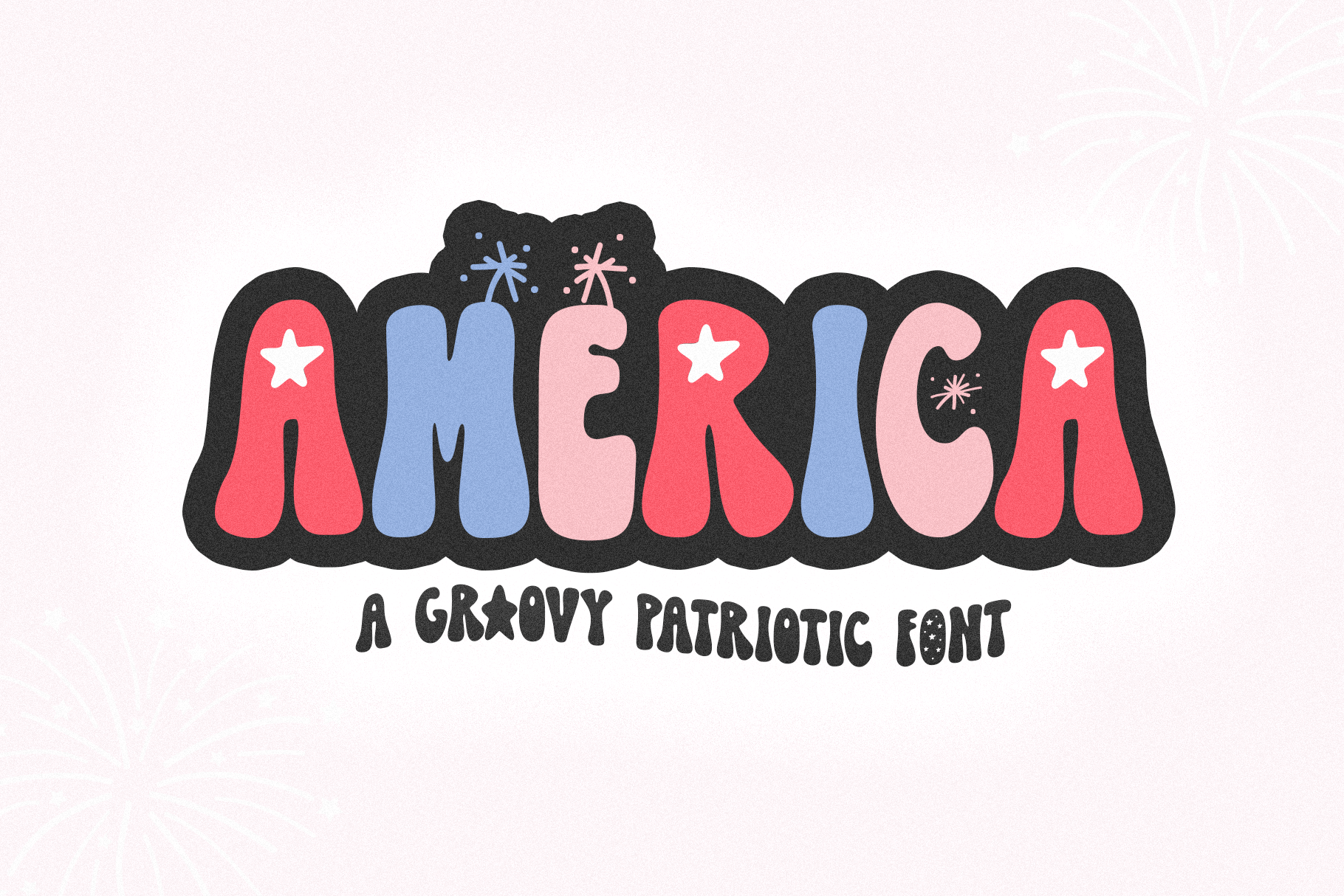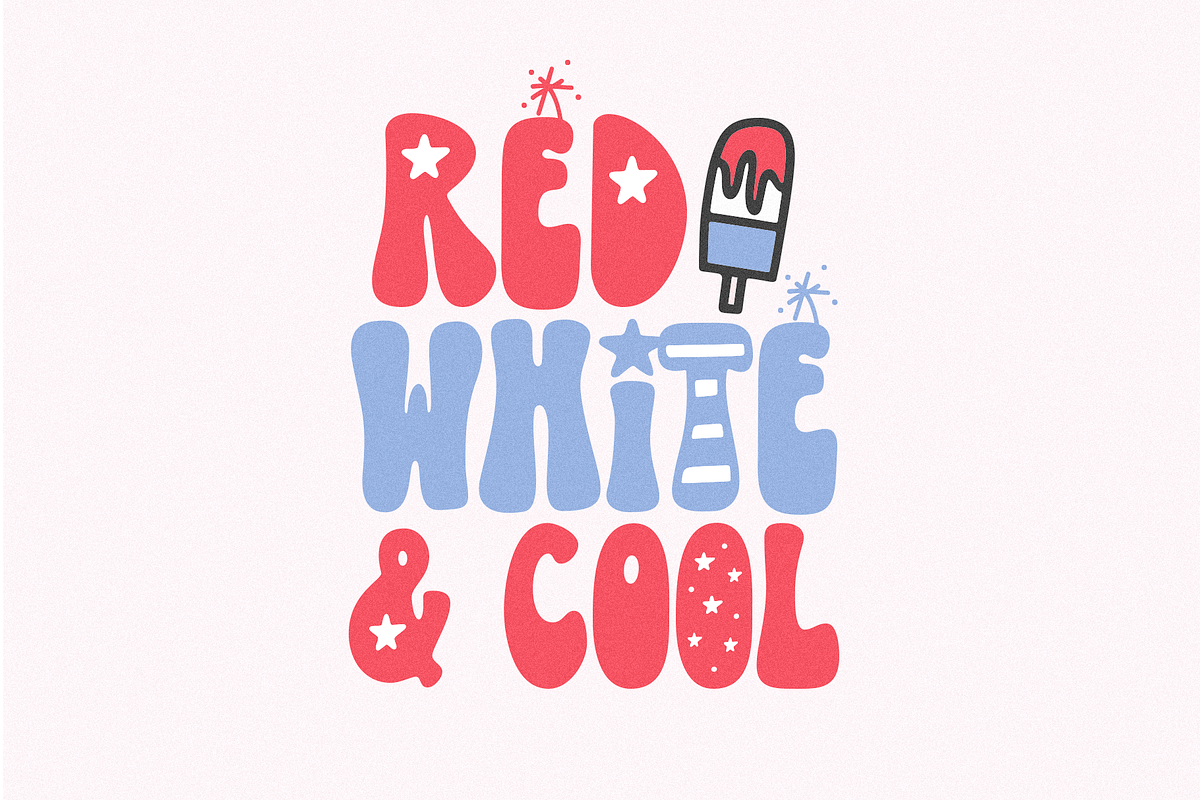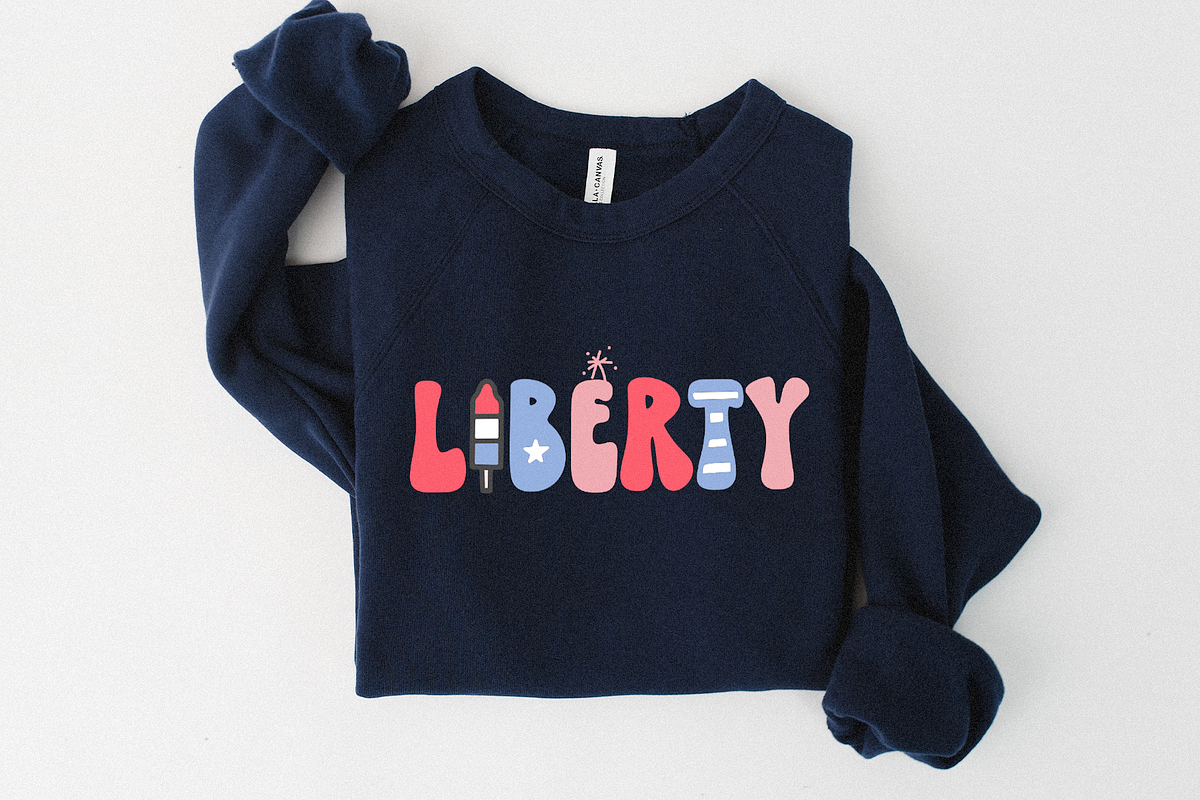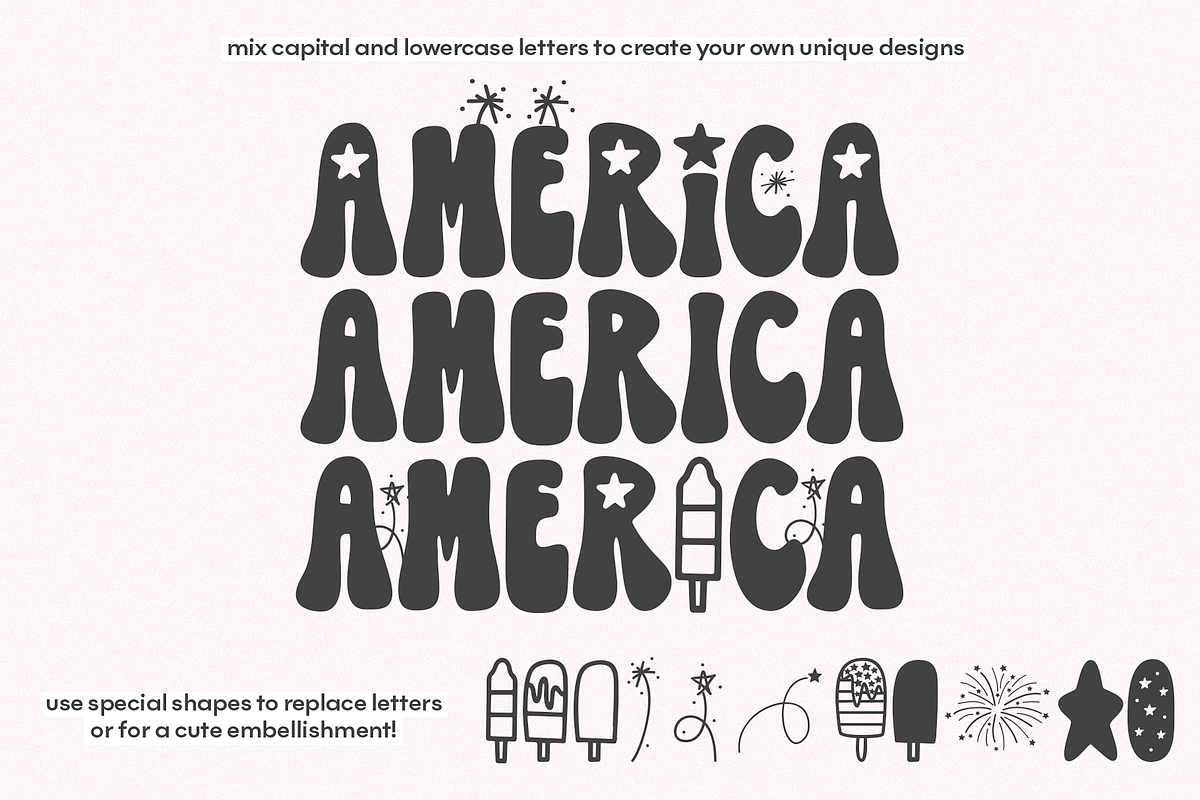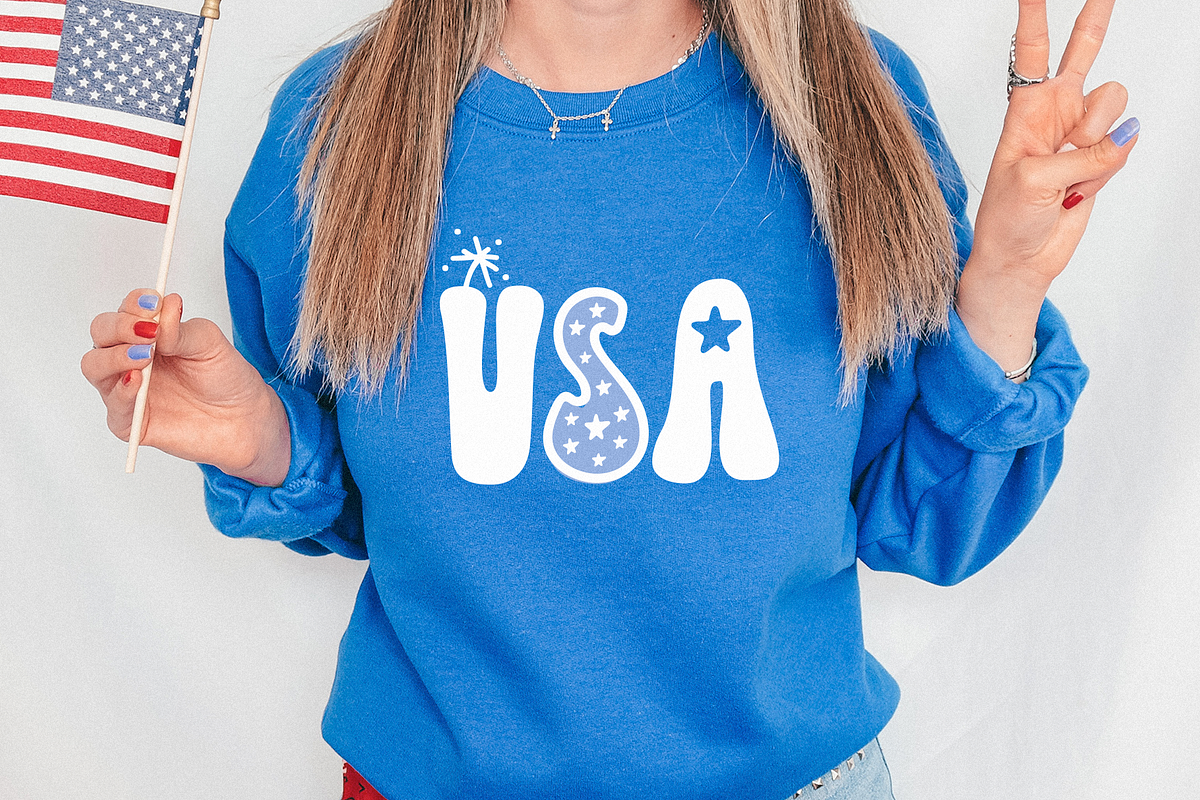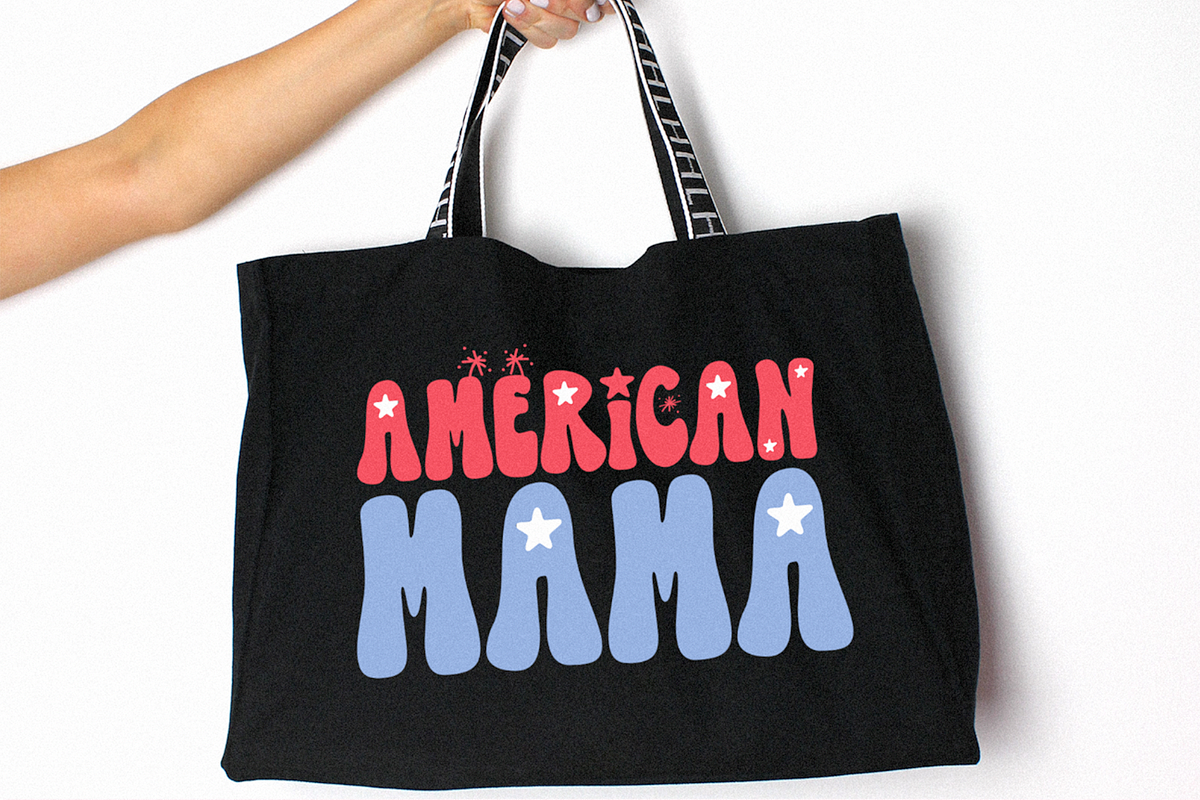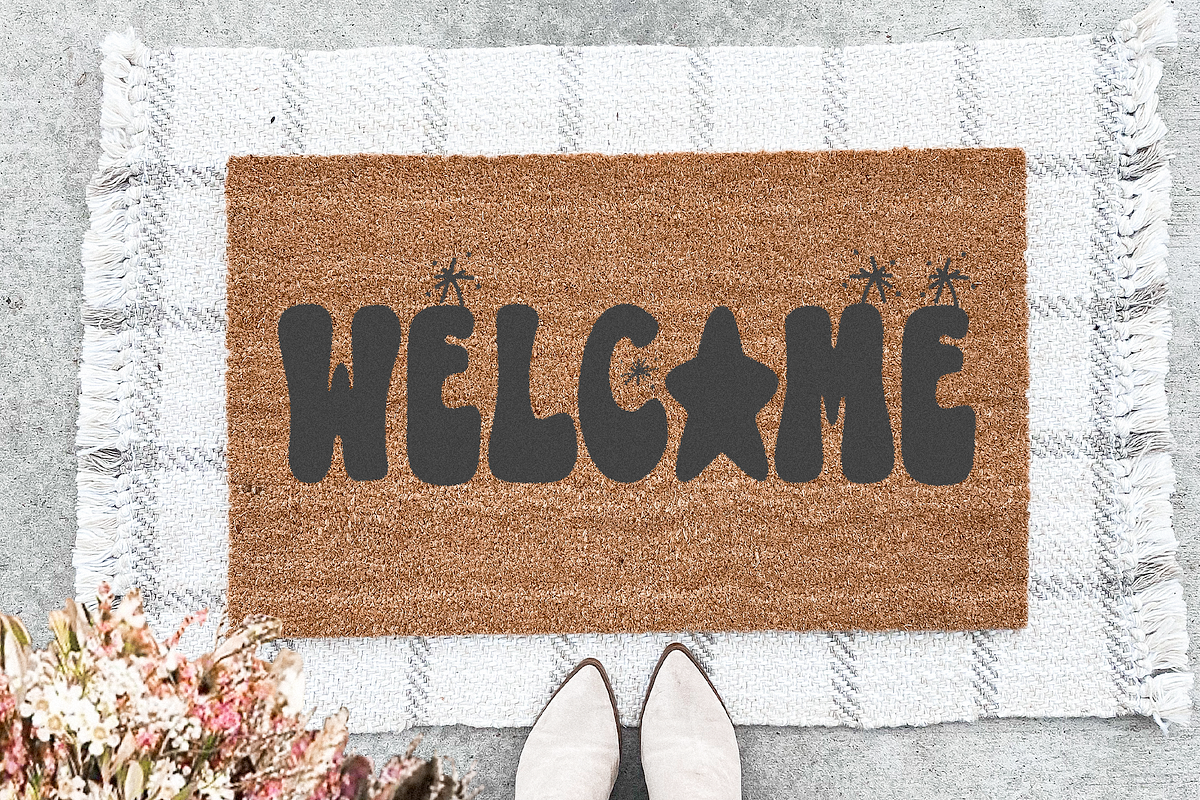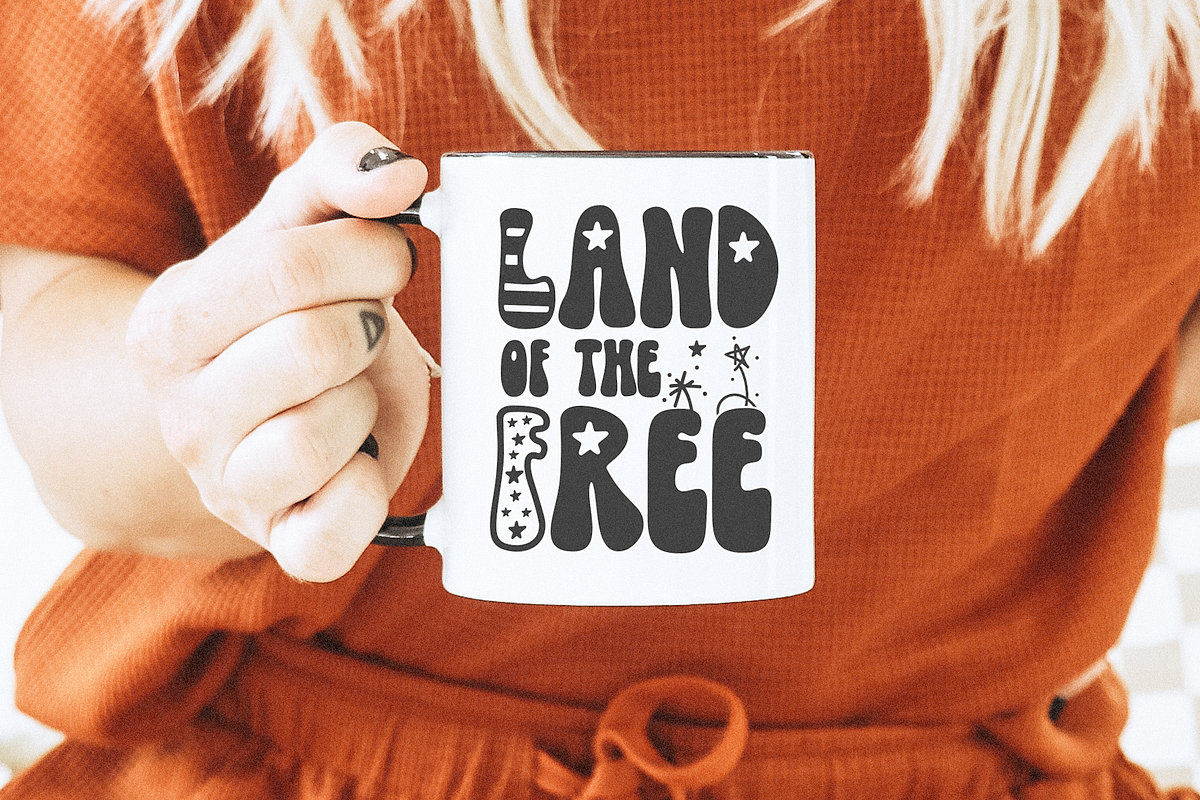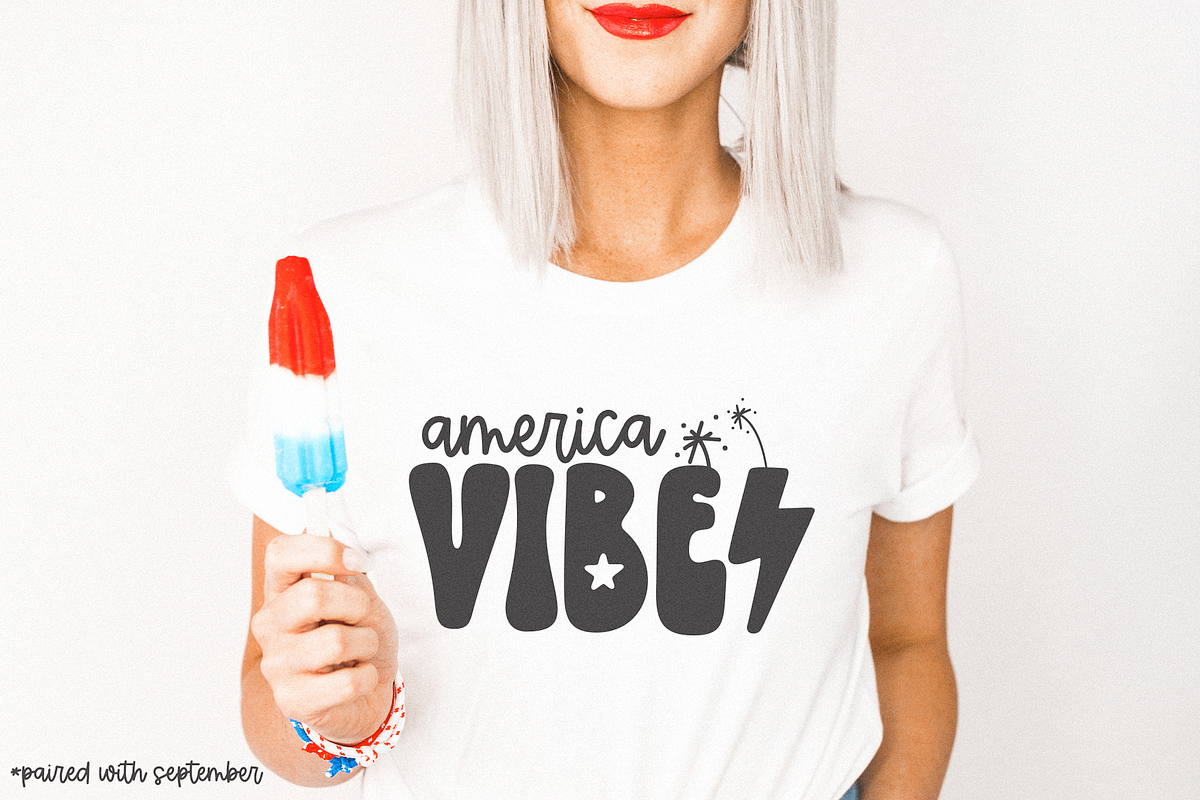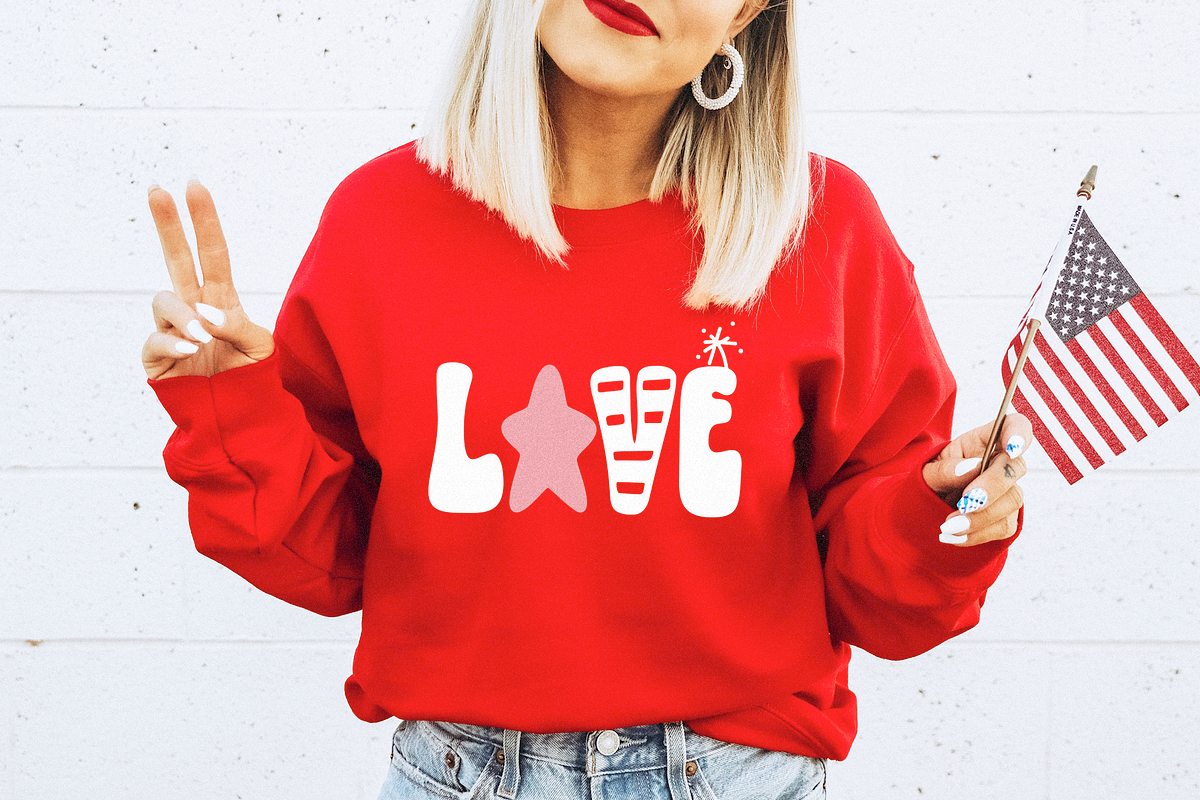
America | Retro Patriotic Font
America is a retro font perfect for all of your Fourth of July / Patriotic designs.. or any design!
This font includes a basic set of A-Z retro letters and also a handful of fun patriotic letters.
Type with lowercase for regular retro letters - type with caps only for a fun decorative set of letters - mix & match!
America is perfect for - retro designs, 4th of July designs, patriotic designs, Memorial Day, svg files, procreate, stickers, logos, greeting cards, craft projects, posters, social media and more!